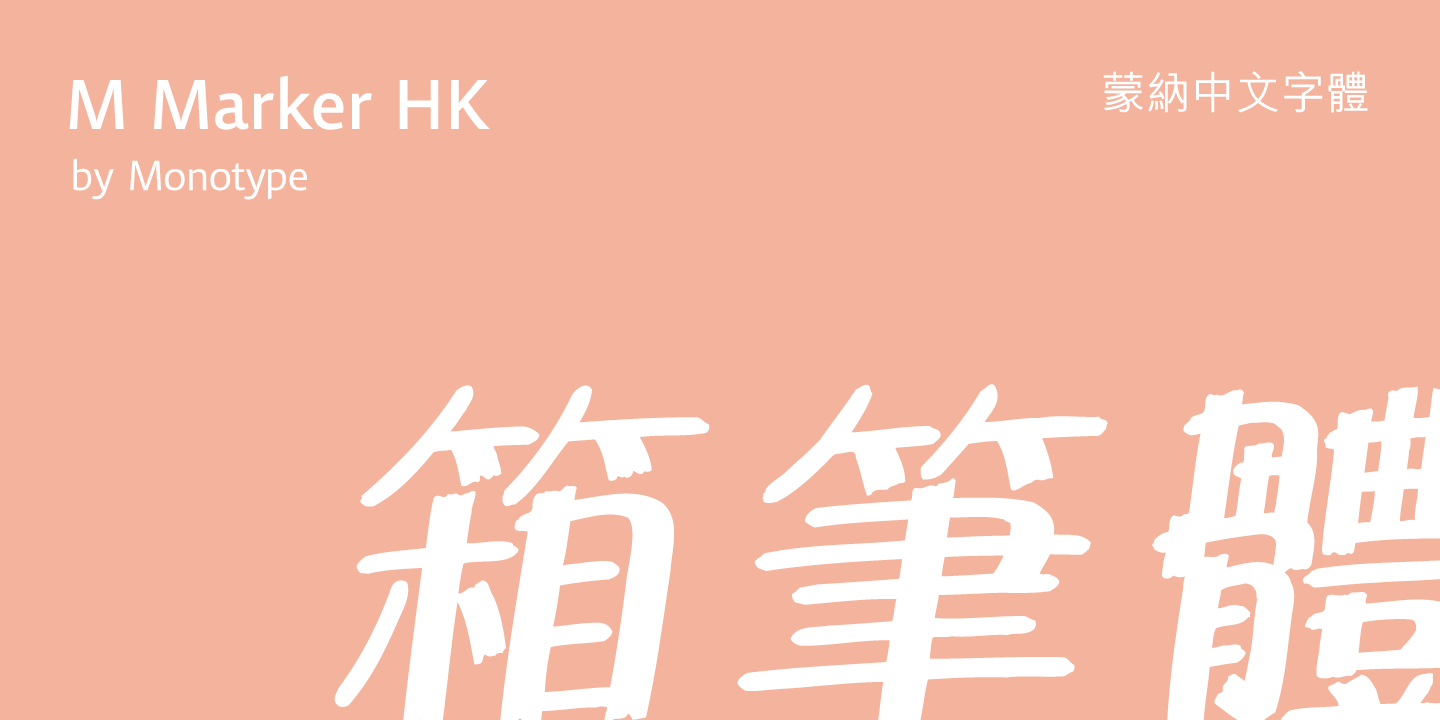
Unleash the raw energy of Hong Kong street culture with M Marker HK Font Free Download, a bold marker-style typeface that captures the vibrant spontaneity of urban handwriting. This high-impact font brings authentic hand-drawn character to designs needing street credibility and energetic appeal.
Why M Marker HK Stands Out
1. Authentic Marker Aesthetics
Natural ink bleed and paper texture
Variable stroke pressure mimicking real marker writing
Slightly irregular baseline for handcrafted feel
2. Urban Design Applications
Made for:
Street art and graffiti-inspired designs
Hong Kong dai pai dong signage
Concert and club promotions
Streetwear brand graphics
Social media campaign visuals
3. Raw Creative Features
Upper/lowercase with contextual alternates
Special Hong Kong-style slang glyphs
Ink splatter and drip ornaments
OpenType stylistic sets
Professional Implementation
M Marker HK Font Free Download kills it in:
Urban renewal campaign graphics
Hip F&B branding
Music festival promotions
Skate/surf brand collateral
Youth-oriented packaging
Layer with concrete textures for street authenticity
Designer Tip: Rotate alternate characters ±5° for true "quick marker tag" effect.
Key Advantages:
No repeating glyphs - each character unique
Built-in paper texture for realism
Perfect for large-scale environmental graphics
Why It's Different:
Unlike digital marker fonts, M Marker HK captures the true imperfections of quick, urban handwriting.
Perfect Pairing:
Combine with a clean Chinese font like Noto Sans HK for balanced bilingual designs.
Pro Insight:
The font includes special Hong Kong English slang words as ligatures (type "HK" "MK" "LKF").
Includes "wet marker" alternate set
Street food icon pack
Graffiti-style arrow collection
Cultural Cred:
Digitized from actual Hong Kong street artist handwriting samples across Kowloon and HK Island.
Expert Technique:
For protest-style graphics, set tracking to -50 and overlay at 90% opacity over newsprint textures.
Technical Note:
OpenType features automatically vary letterforms based on surrounding characters for organic flow.
Warning: